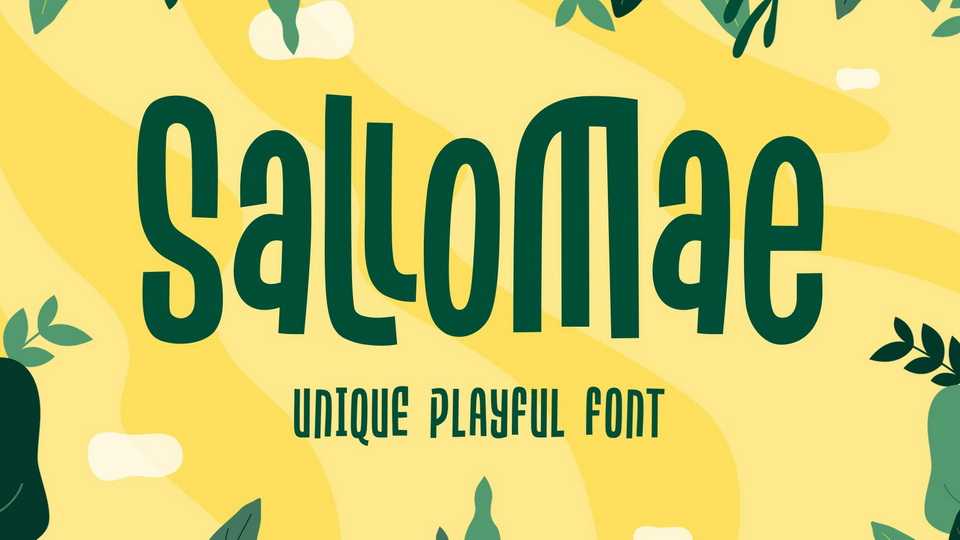
Download Sallomae font, a playful display typeface inspired by jungle cartoon, and children’s book. Sallomae designed with a cheerful monoline concept and adjusted well to keep the legibility.